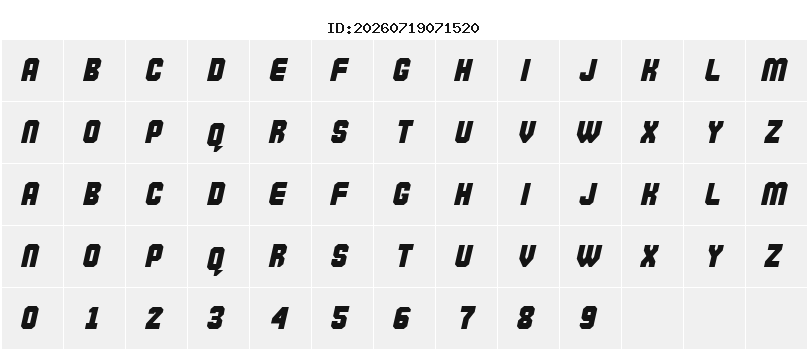
Commando Preview
• Font Name: Commando
• Font Style: Commando
• Font ID: defaulterror: Commando: 2007
• Full Font Name: Commando
• Version: Version 1.00 2007 initial release
• PostScript Name: Commando
• Character Count: 63
• Designer: Derek Clark
• Manufacturer: defaulterror
• Description: 2007. Designed for the defaulterror type foundry.
About Commando.ttf
Commando.ttf is a modern, elegant sans-serif font designed for ultimate readability and visual harmony. Perfect for branding, headlines, web design, and print materials.